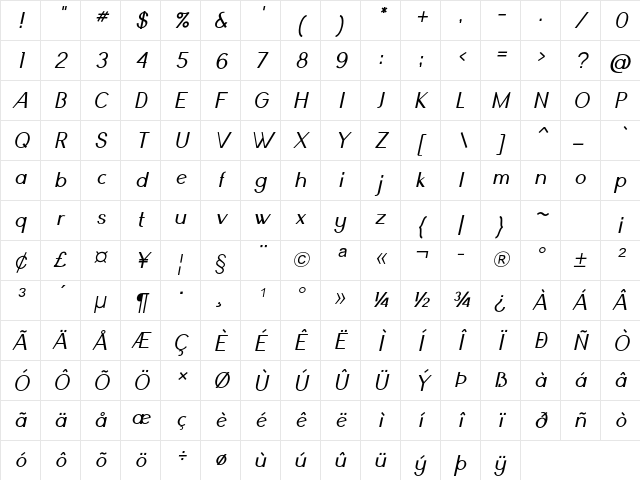
Nickel is a composed and adaptable typeface that performs quietly and consistently across a wide range of design contexts. The slanted form adds forward momentum and visual energy.